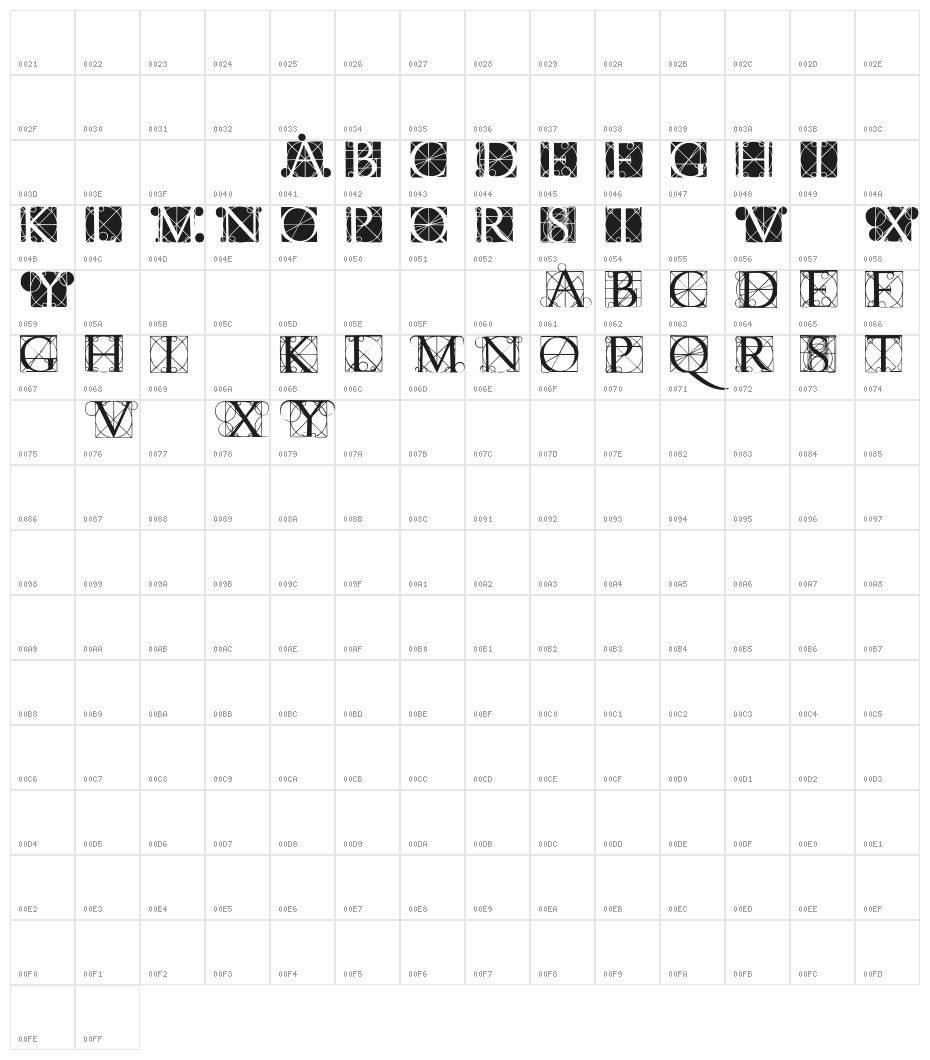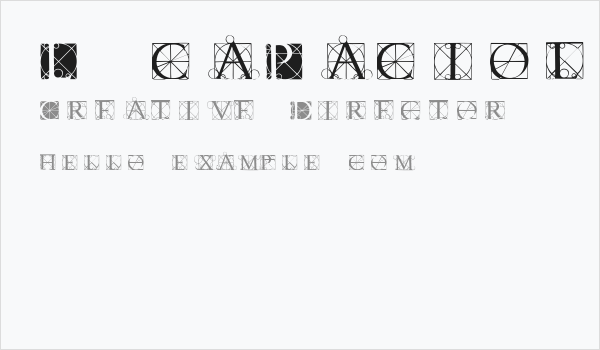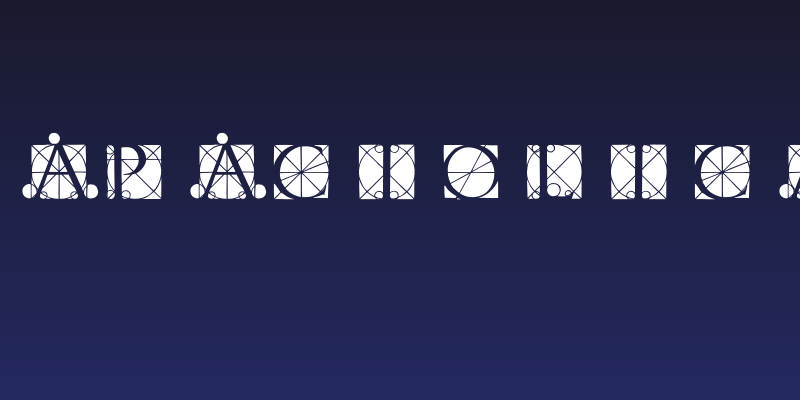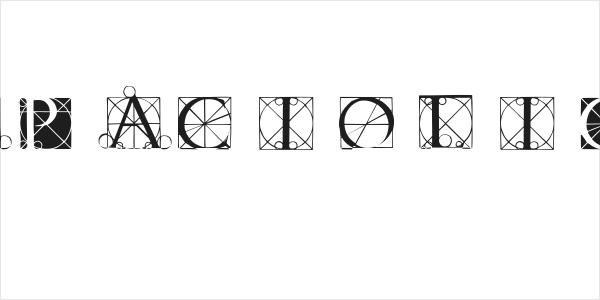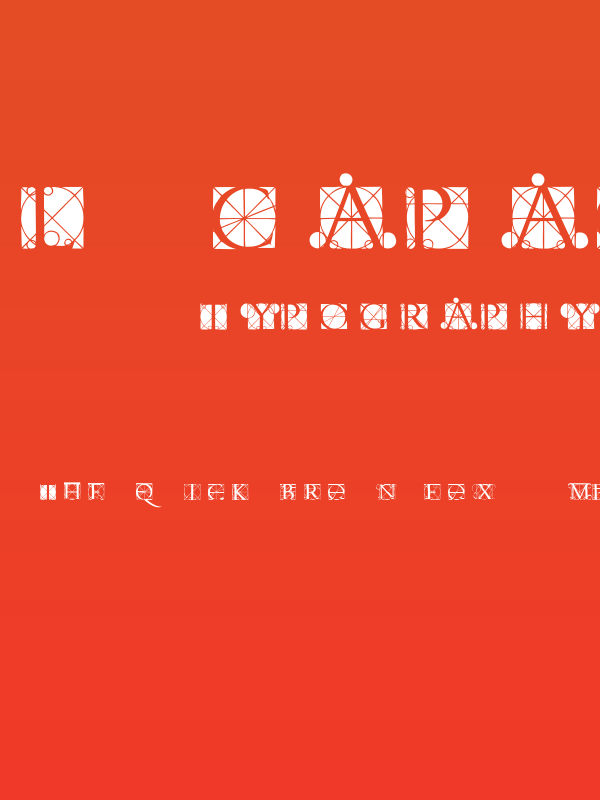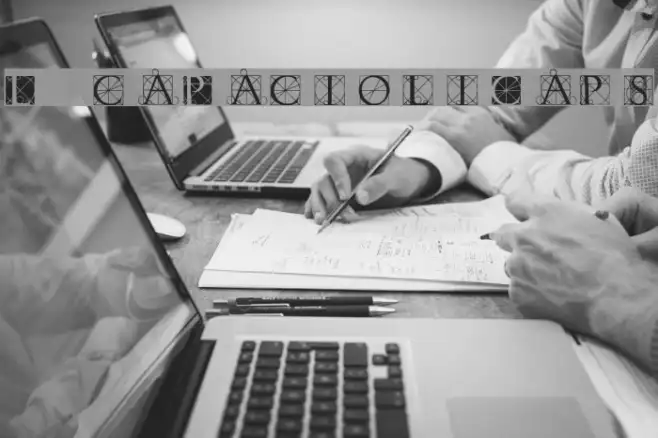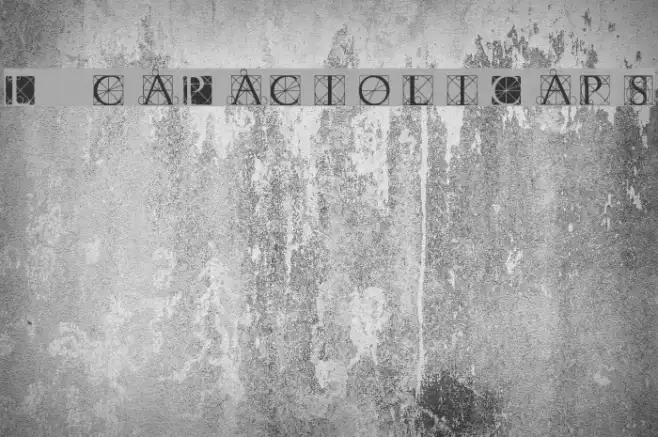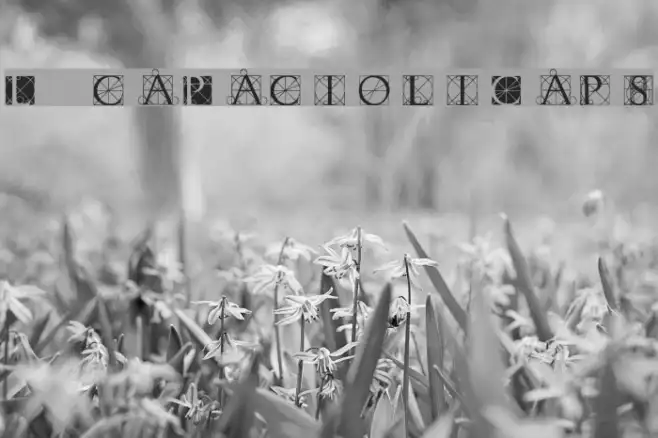
LucaPacioliCaps Font
LucaPacioliCaps Description
This font is a unique and intricate design inspired by geometric principles and classical proportions. Each character is constructed with a series of intersecting lines and circles, creating a complex, almost architectural appearance. The letters are enclosed within a square, giving them a structured and balanced look. The design is reminiscent of Renaissance art and mathematical precision, making it both artistic and technical. The font's decorative nature and high level of detail make it stand out, suitable for projects that require a touch of sophistication and elegance. Its bold and striking appearance ensures it captures attention, while the geometric elements add a sense of harmony and order.
| Use Case | Logos, Decorative headings, Artistic projects |
| Proposed Projects | Ideal for artistic projects, branding, logos, and decorative headings that require a sophisticated and unique touch. |